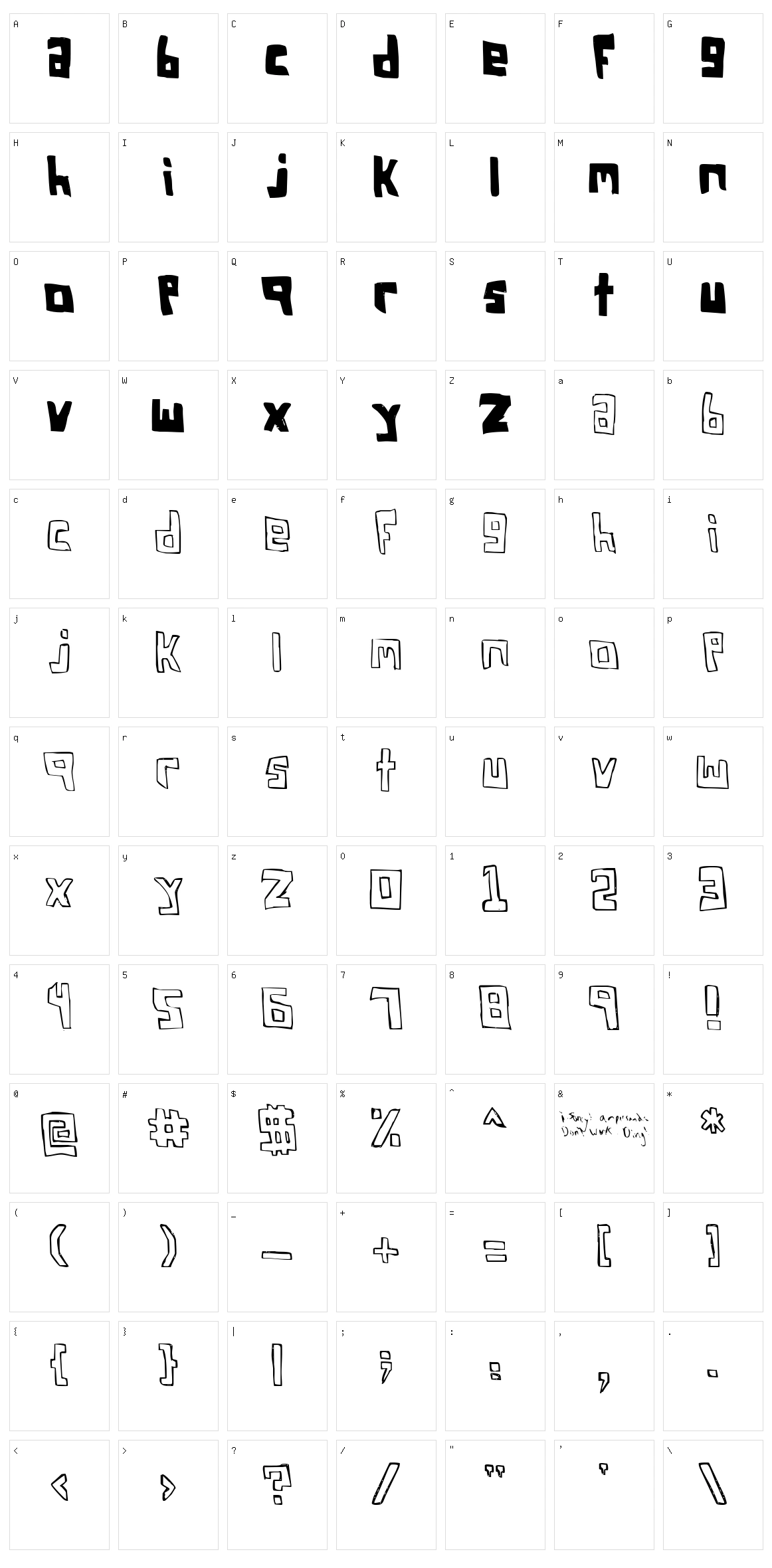
| "square bracket" [ # 12 ] |
| created on 07.15.99 |
| using sharpies, pilot pens, and my scanner. |
| square bracket originated in never named. i liked |
| the style so i made it a font. the end. |